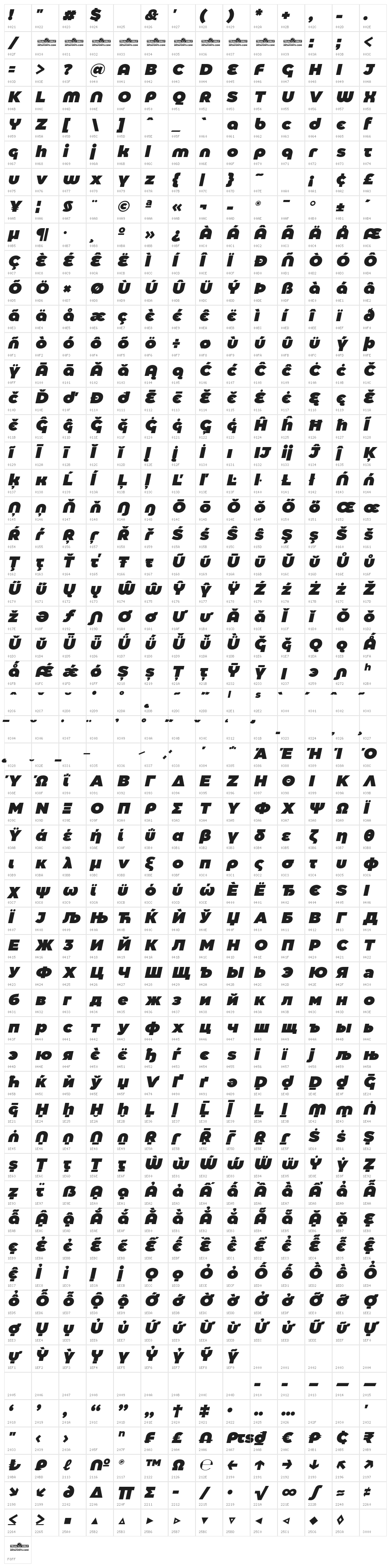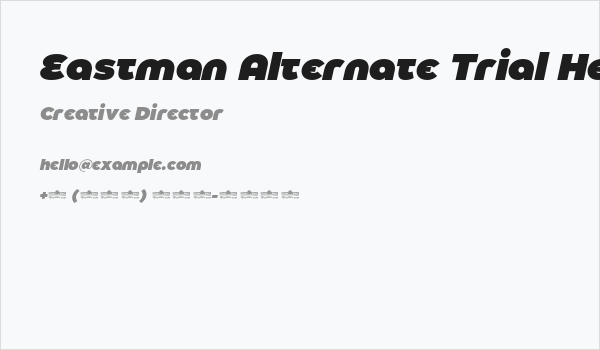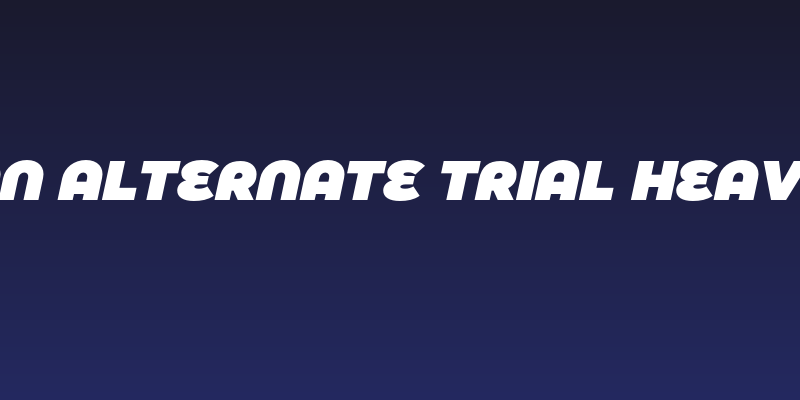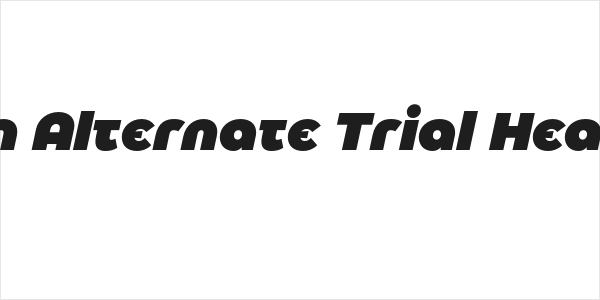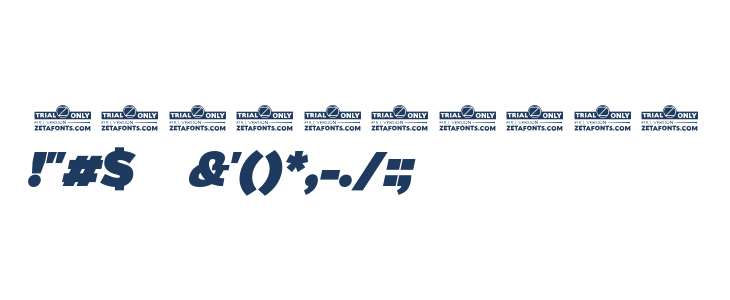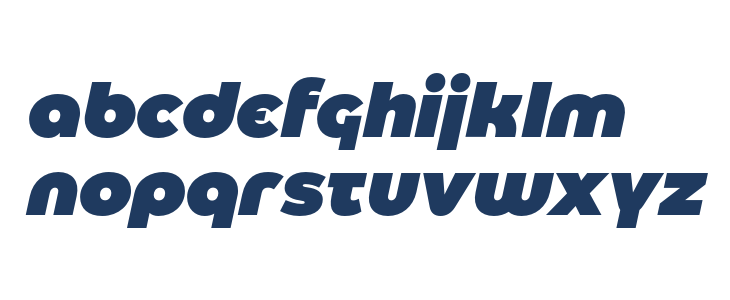
Eastman Alternate Trial Heavy Italic Font
Eastman Alternate Trial Heavy Italic Description
This font features a bold and dynamic style with a heavy italic slant, giving it a sense of movement and energy. The characters are thick and robust, with a modern flair that makes them stand out. The uppercase letters are particularly striking, with unique shapes and angles that add a distinctive touch. The lowercase letters maintain the same boldness, ensuring consistency throughout the typeface. The numerals and special characters are equally bold, complementing the overall design. This font is ideal for projects that require a strong visual impact and a contemporary aesthetic.